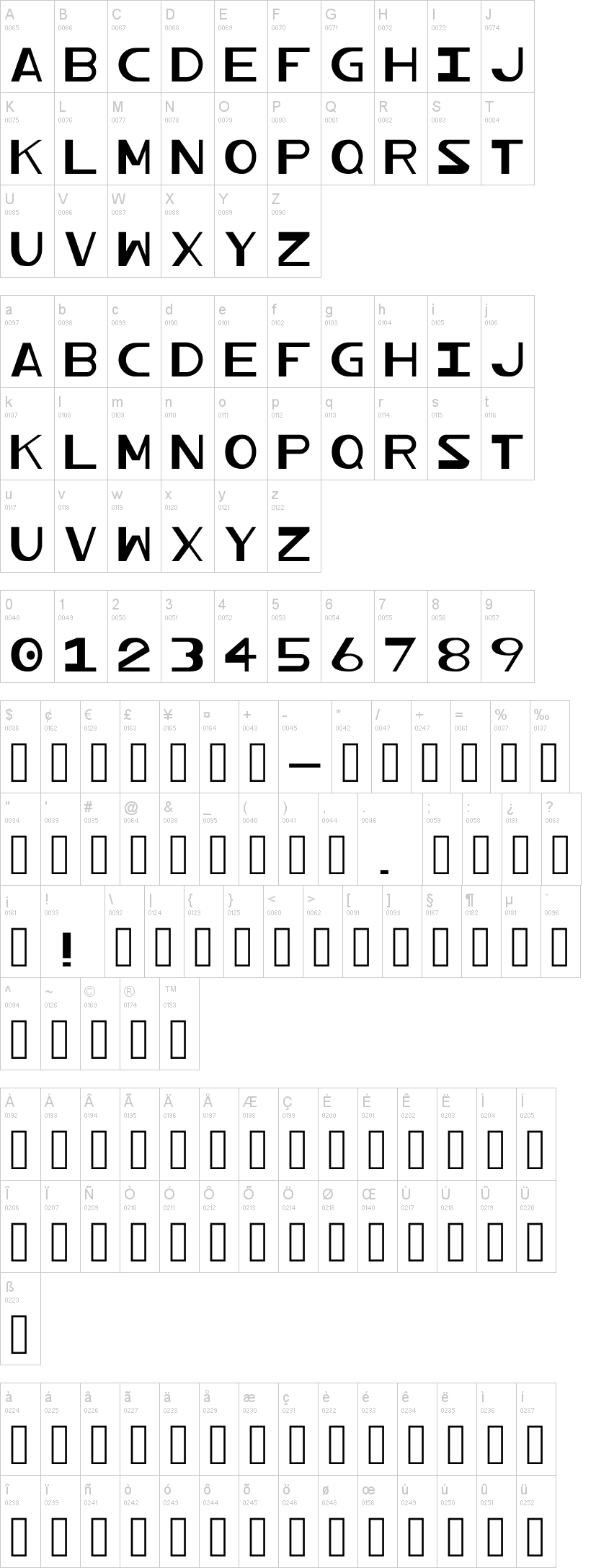
Шрифт Profundum
Profundum is an experimental typeface. The typeface consists of characters that were placed in a flat perspective and are a mixture of classic and modern shapes. The letters are based on a square grid of 4 by 4 units. There is no distinction made between lower case and upper case.